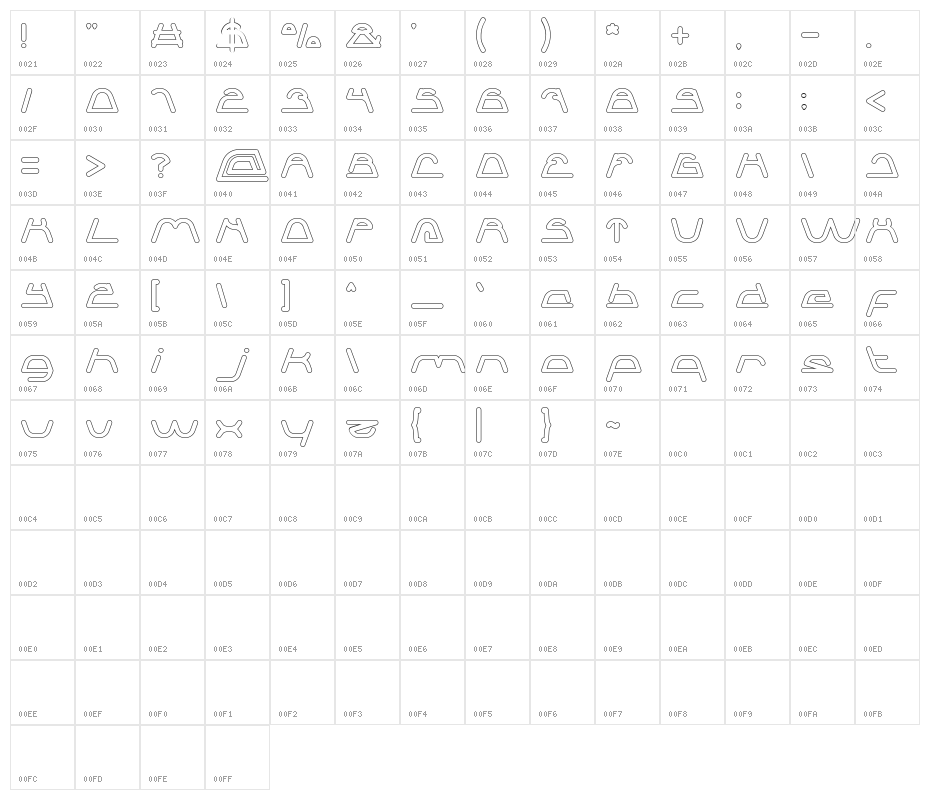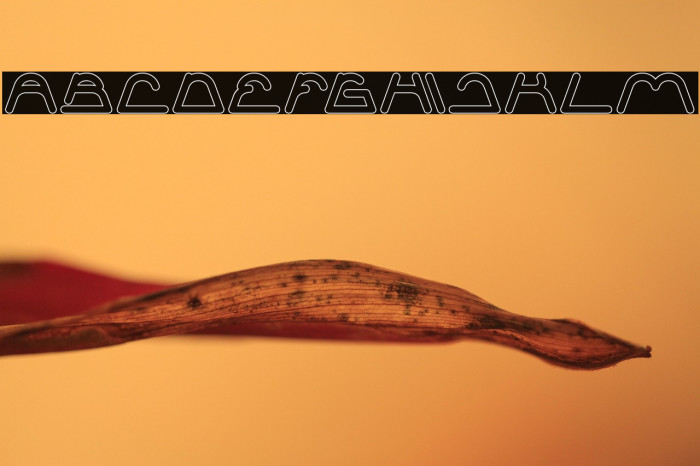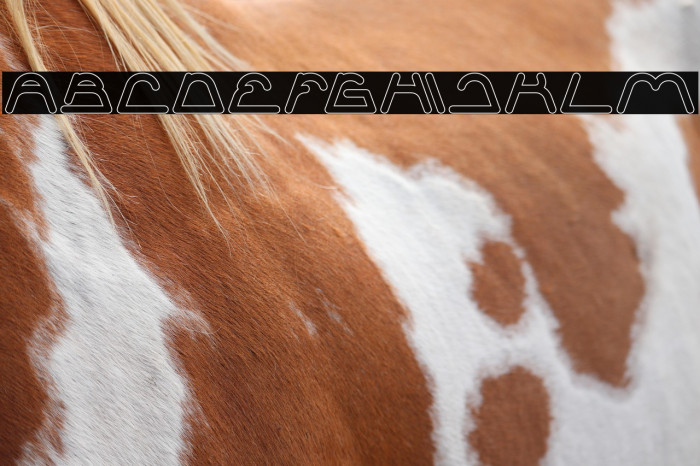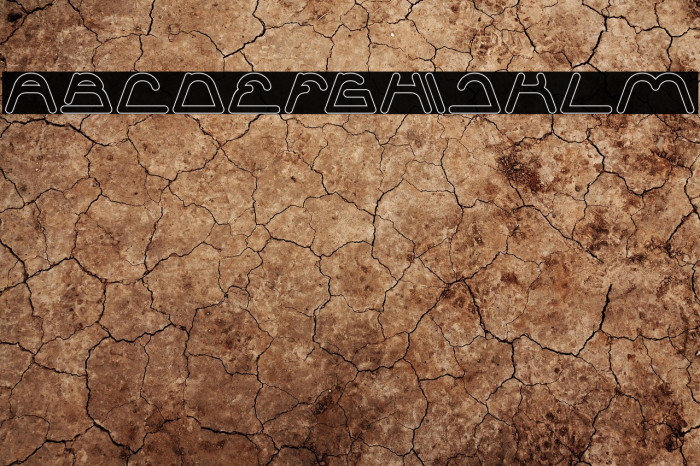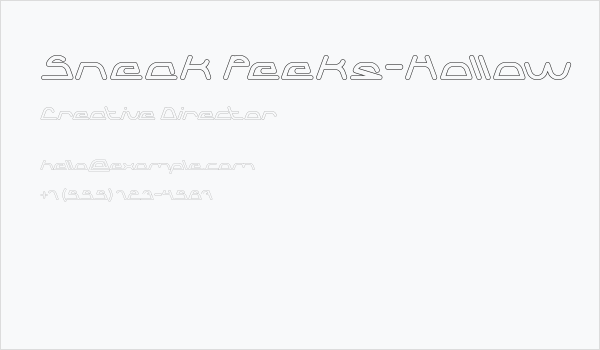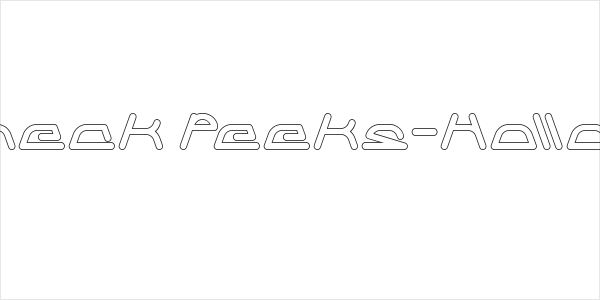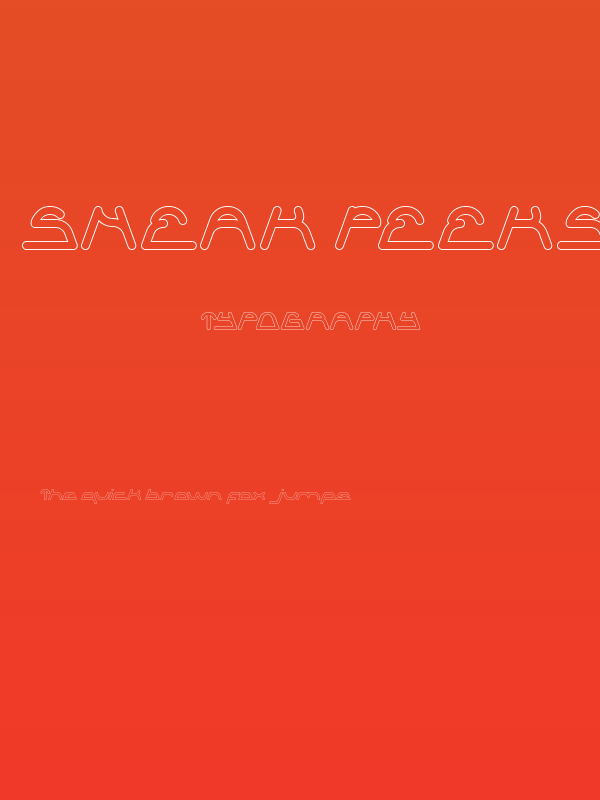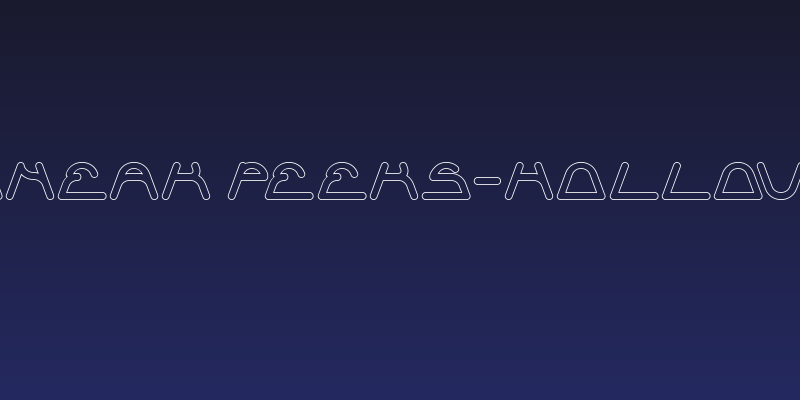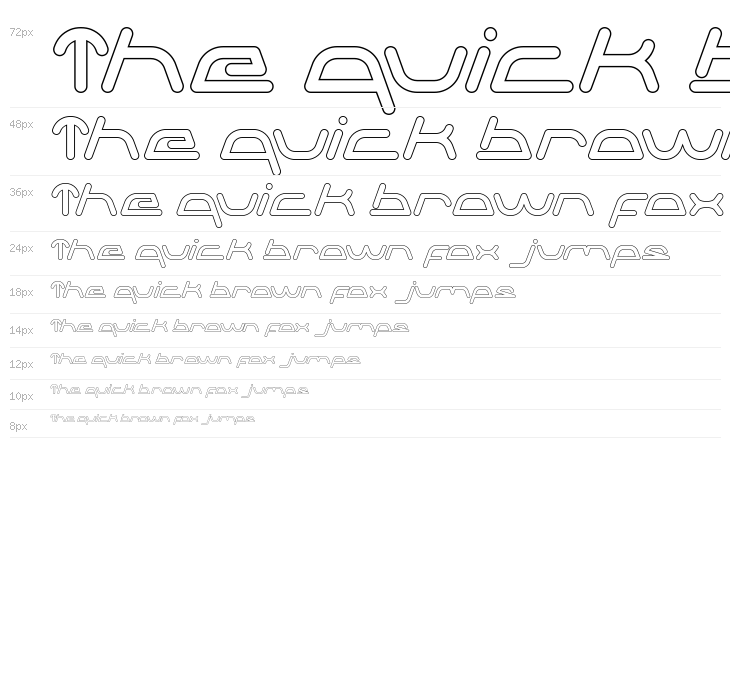
Sneak Peeks-Hollow Font
Sneak Peeks-Hollow Description
This font features a unique hollow design with a futuristic and geometric aesthetic. Each character is outlined with a consistent stroke width, creating a sleek and modern look. The uppercase and lowercase letters maintain a uniform style, with angular and rounded elements that give the font a distinctive appearance. The numbers and special characters follow the same design principles, ensuring cohesion across all glyphs. This font's open structure and clean lines make it highly legible while maintaining an artistic flair.
| Proposed Projects | Ideal for sci-fi themed projects, modern branding, tech-related designs, and innovative product packaging. |